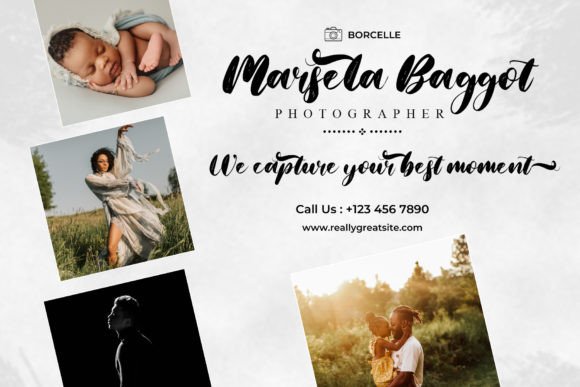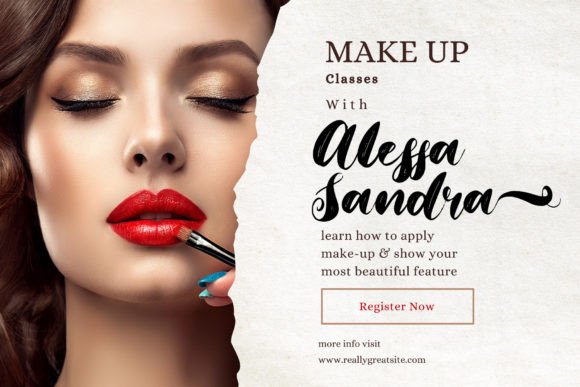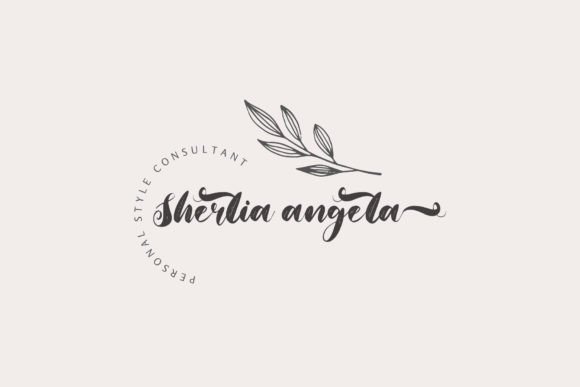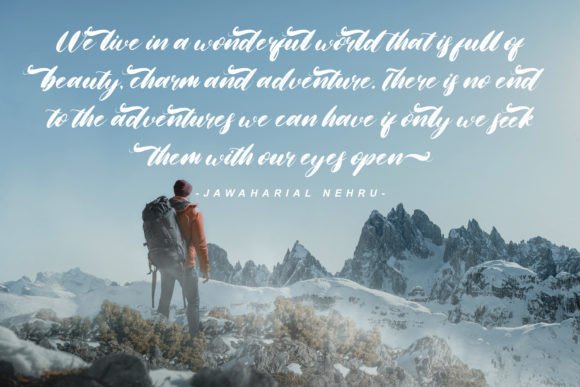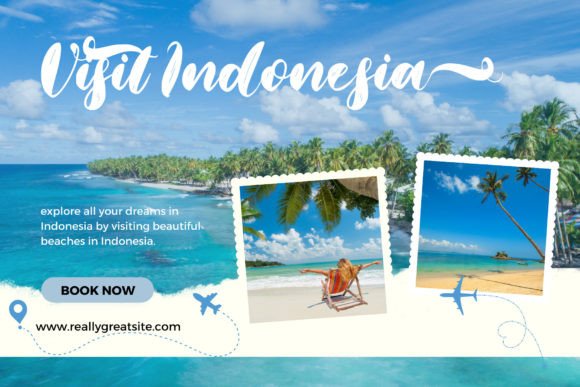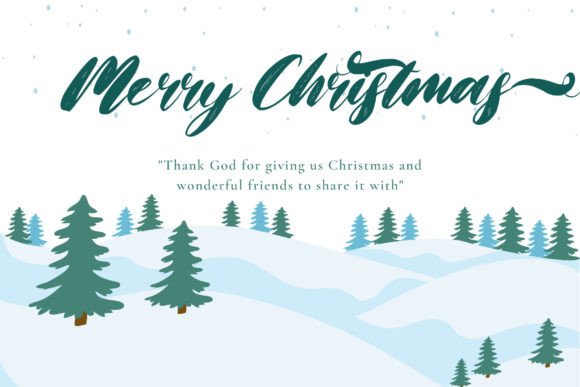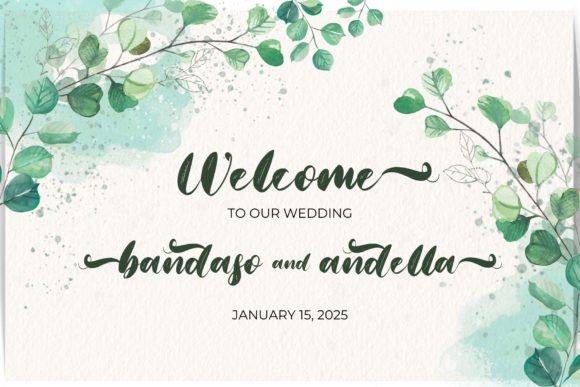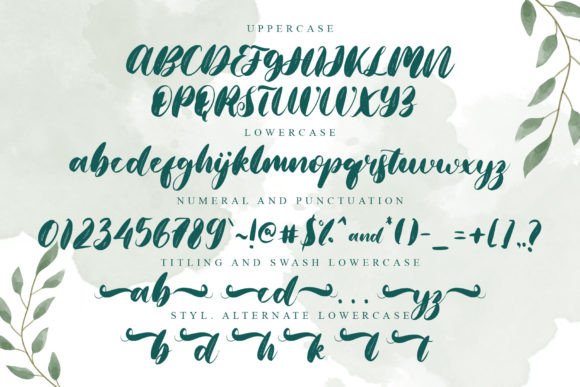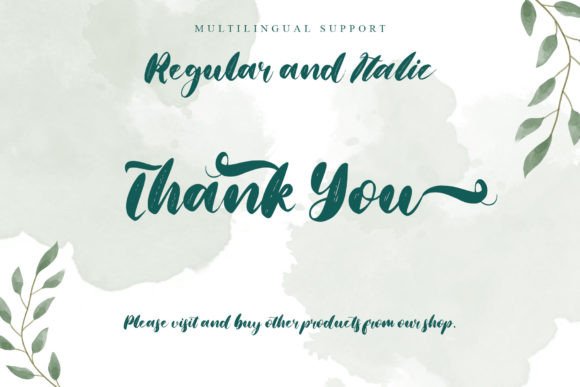
Christmas Blessed Font
About Christmas Blessed Font
Christmas Blessed Font Download is your go-to solution for elegant, joyful, and timeless holiday design. With its dazzling handwritten style and graceful swashes, this font is crafted to bring cheer, warmth, and class to your seasonal projects. Whether you’re designing a Christmas greeting, a festive quote, or a brand-new logo for a winter collection, Christmas Blessed delivers the holiday spirit with flair.
This beautifully crafted script font brings magic and elegance to every word. Its natural flow and well-balanced forms make it an exceptional choice for creatives looking to elevate their work during the most wonderful time of the year.
Dazzling Script for Holiday Projects
The handwritten elegance of Christmas Blessed sets it apart from ordinary holiday fonts. Designed with attention to smooth curves and striking detail, this font adds sophistication and joy to every design it touches.
Perfect for:
• Christmas cards and invitations
• Holiday-themed logos and branding
• Instagram quotes and festive content
• Product packaging for seasonal items
• Printable crafts, tags, and labels
Its timeless style ensures your designs look polished and festive while still feeling personal and warm.
A Timeless Holiday Aesthetic
Christmas Blessed is more than just a seasonal script—it’s a celebration of the holidays in every letter. Its clean lines and ornamental flourishes create a perfect balance between tradition and trend, making it ideal for modern and vintage-inspired designs alike.
This font pairs wonderfully with classic serif fonts for traditional layouts or minimalist sans-serifs for a contemporary look. Either way, the result is always festive, classy, and visually engaging.
If you’re searching for a holiday font that combines beauty, ease of use, and versatility, Christmas Blessed Font Download is the perfect choice. It allows you to spread holiday joy with elegant typography that’s easy to work with and stunning to see.
Whether you’re designing for clients, yourself, or a seasonal product line, this font helps your message shine with heartfelt charm. Its dazzling handwritten style will transform any Christmas creation into something memorable and magical.